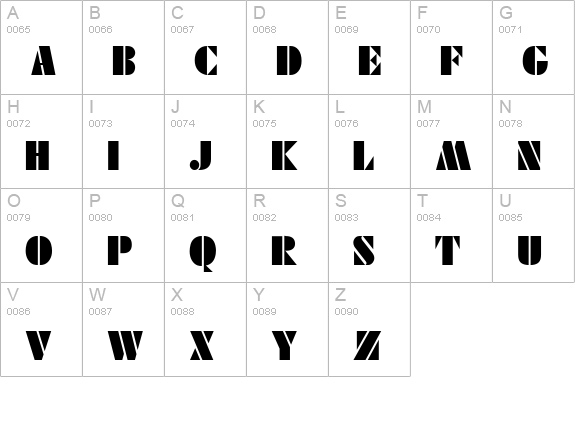
Dayton Regular Font Details
Dayton Regular is the standard, neutral variant in the Dayton typeface family \xE2\x80\x94 well suited to general body text, paragraphs, and standard typographic work.